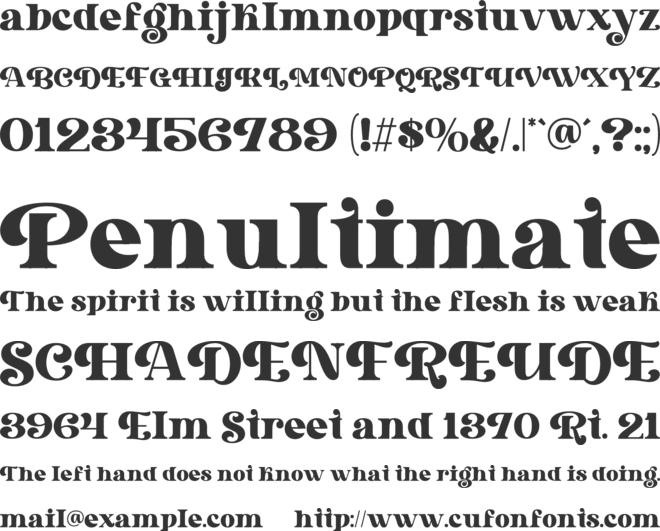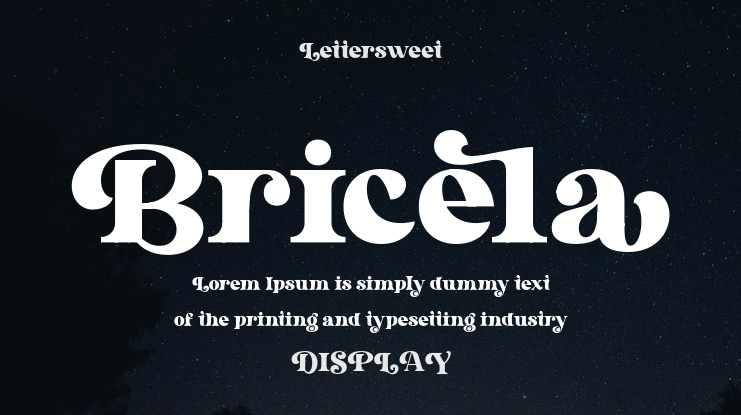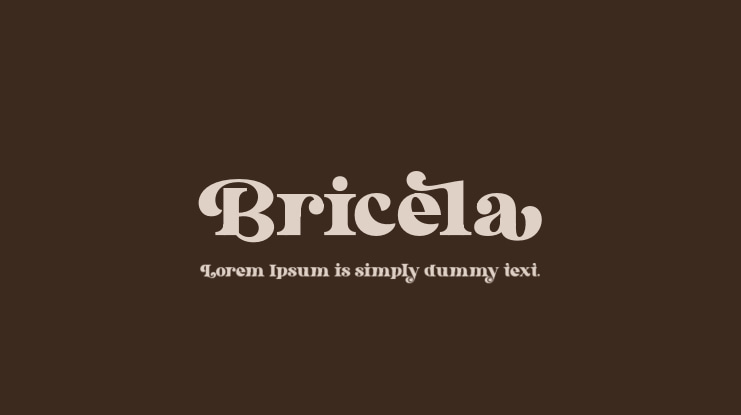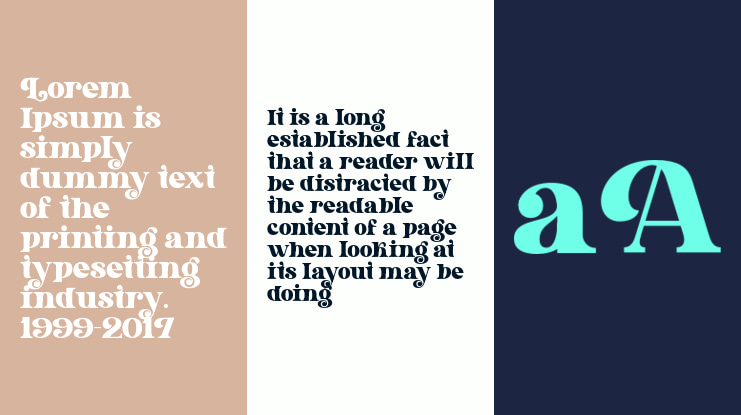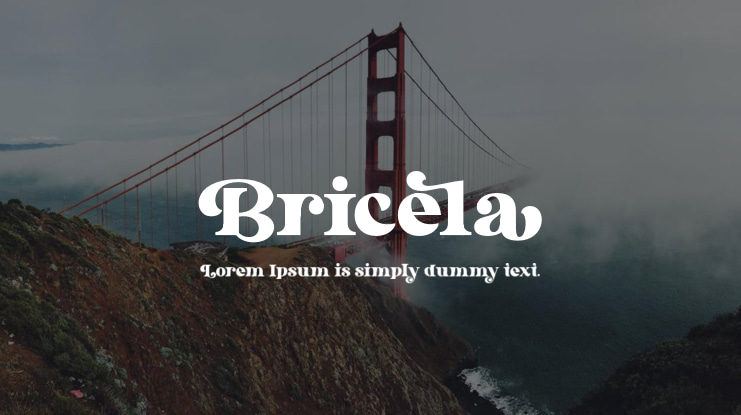
Bricela Font
Bricela feels playfully nostalgic and delivers an incredible vintage aesthetic. Use this serif font to add that special retro touch to any design idea you can think of!
Masterfully designed to become a true favorite, this font has the potential to bring each of your creative ideas to the highest level!
This font is PUA encoded which means you can access all of the glyphs and swashes with ease!